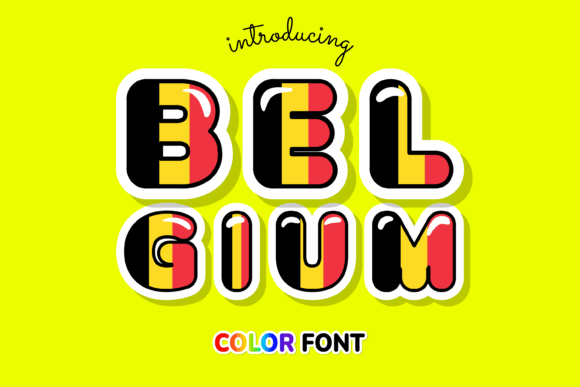
Step into a realm of creativity and expression with Belgium Font, a vibrant and captivating color font designed to ignite your imagination. Crafted by the talented JUSTTYPE, this font embodies the spirit of Belgium, blending the allure of its culture with the boldness of its flag.
Immerse yourself in a symphony of colors as Belgium Font dances across your screen. Each letter, a burst of radiance, commands attention with its unique hues and playful design. Unleash your inner artist and let your designs bloom with the vibrant energy of Belgium Font.
Whether you're a seasoned designer or just embarking on your creative journey, Belgium Font is your perfect companion. Its versatility knows no bounds, lending its charm to an array of projects. From personalized invitations and eye-catching posters to vibrant social media graphics and stunning website designs, Belgium Font adds a touch of magic to every creation.
With Belgium Font, the possibilities are endless. Its playful nature makes it an ideal choice for DIY crafts, adding a pop of color and personality to your handmade masterpieces. Let your imagination soar as you transform ordinary objects into extraordinary works of art.
And for those who love to explore the world of Cricut, Belgium Font is your ultimate companion. Its compatibility with Cricut machines makes it a breeze to bring your creative visions to life. Cut, design, and create with ease, knowing that Belgium Font will elevate your projects to new heights of artistry.
So, embrace the vibrancy of Belgium Font and embark on a creative adventure like never before. Let your designs burst with color, your words dance with joy, and your imagination roam free. With Belgium Font, every creation becomes a masterpiece.